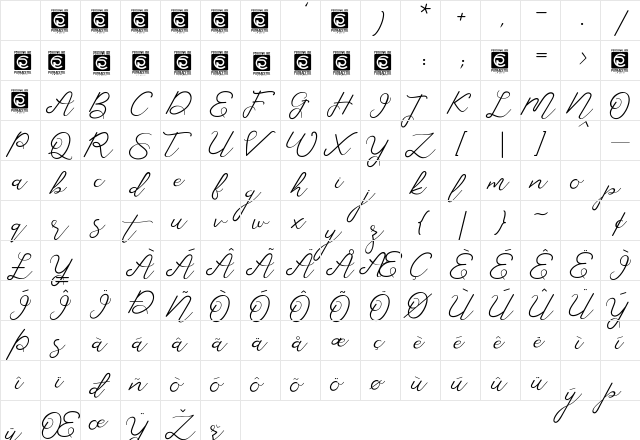
Corlita Script Free flows with the natural rhythm of handwritten lettering, making it ideal for designs that call for warmth and personal expression.
Font Pairing: Combine Corlita Script Free with a simple geometric sans for maximum contrast - the tension between flowing curves and clean structure is a classic typographic pairing.
Pro Tip: Use Corlita Script Free for short runs of text - names, titles, or taglines. Extended body copy in script faces tires the eye quickly.